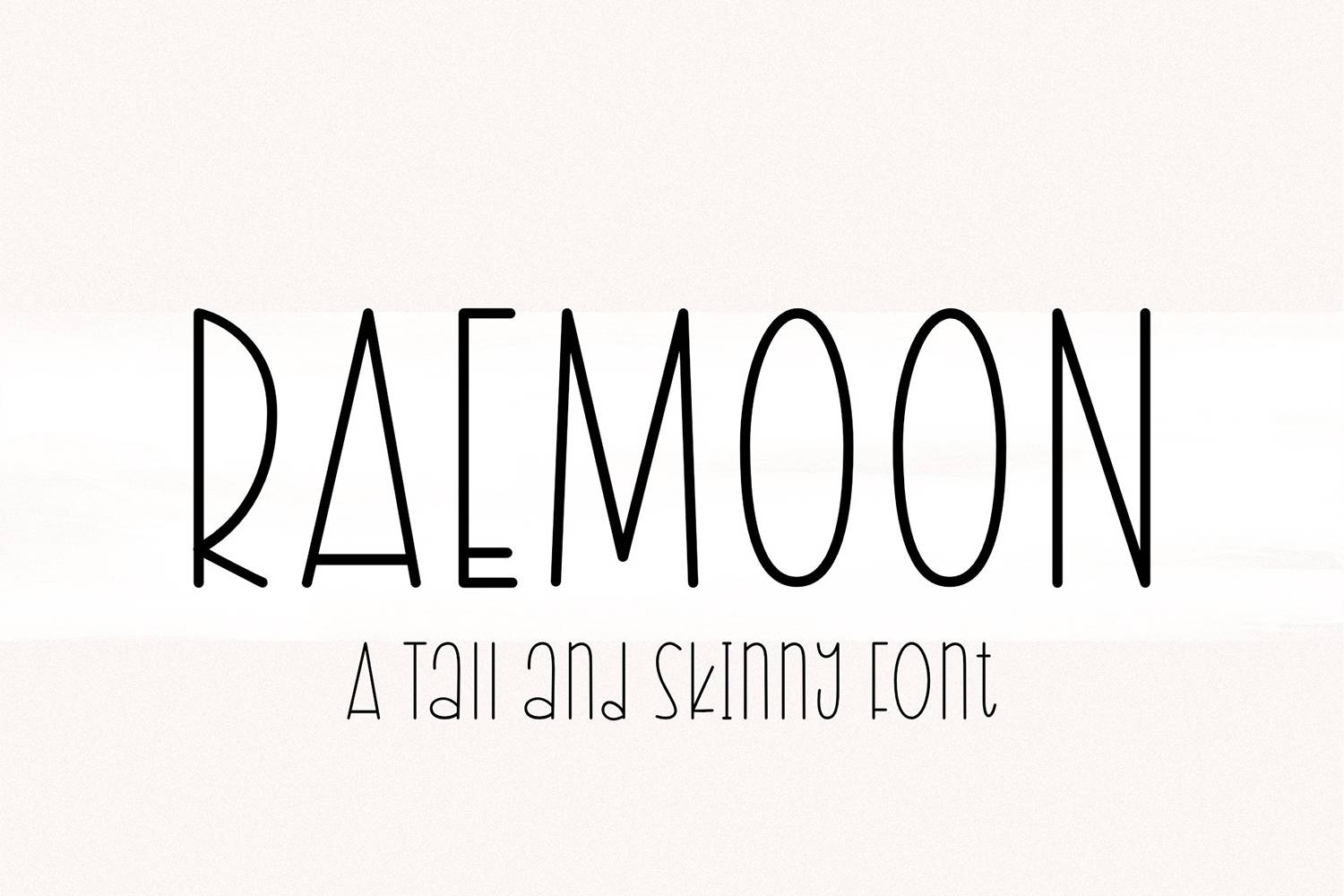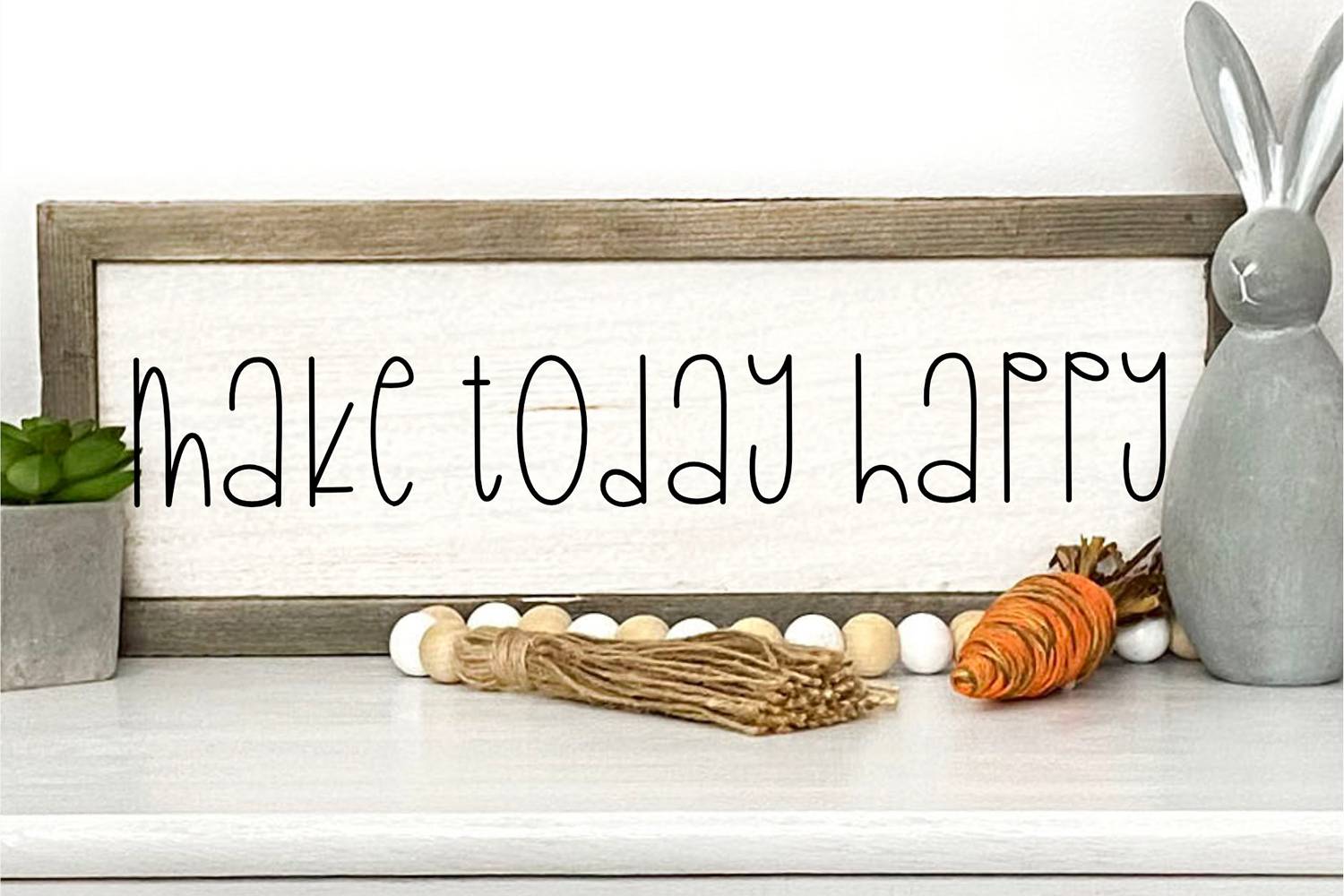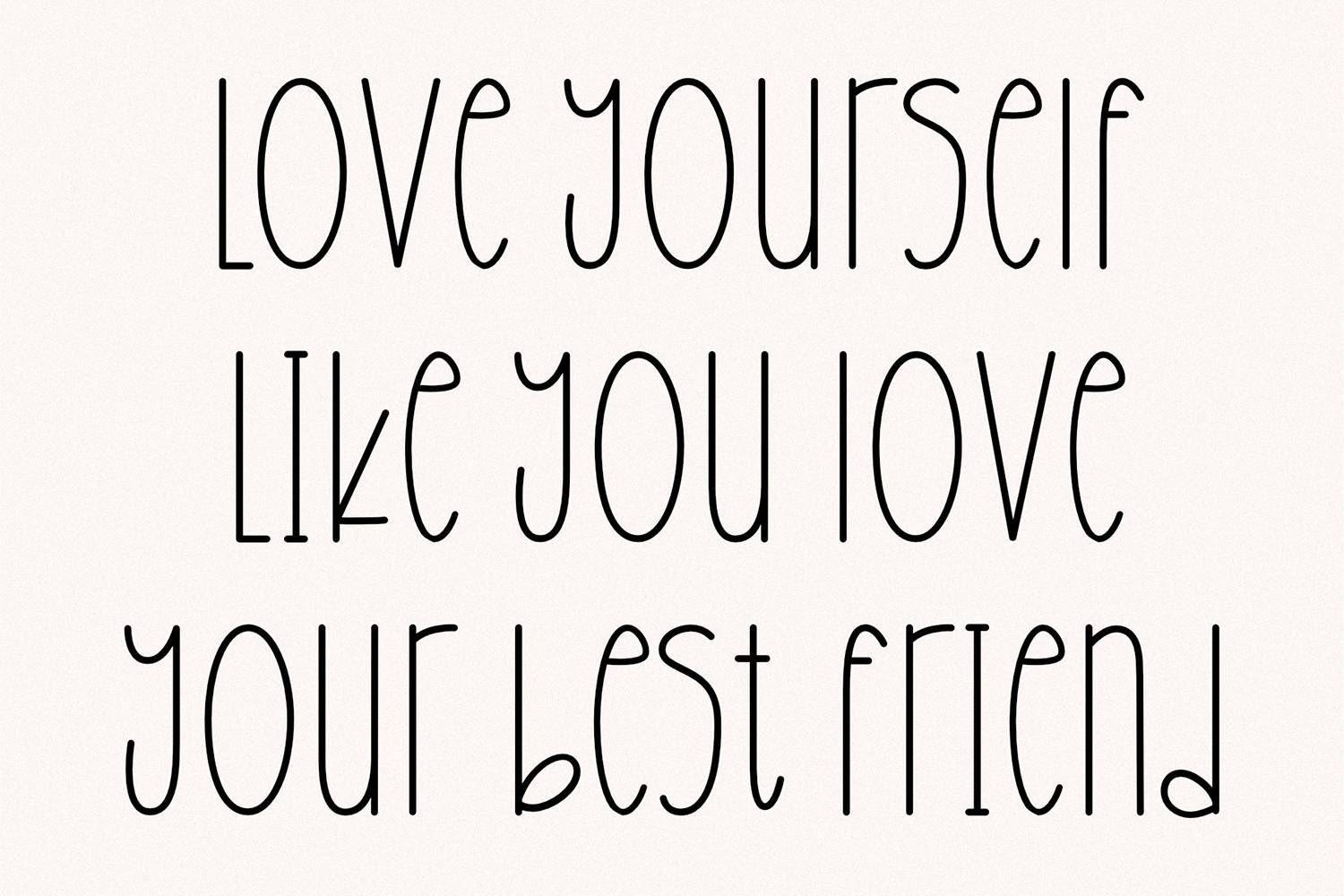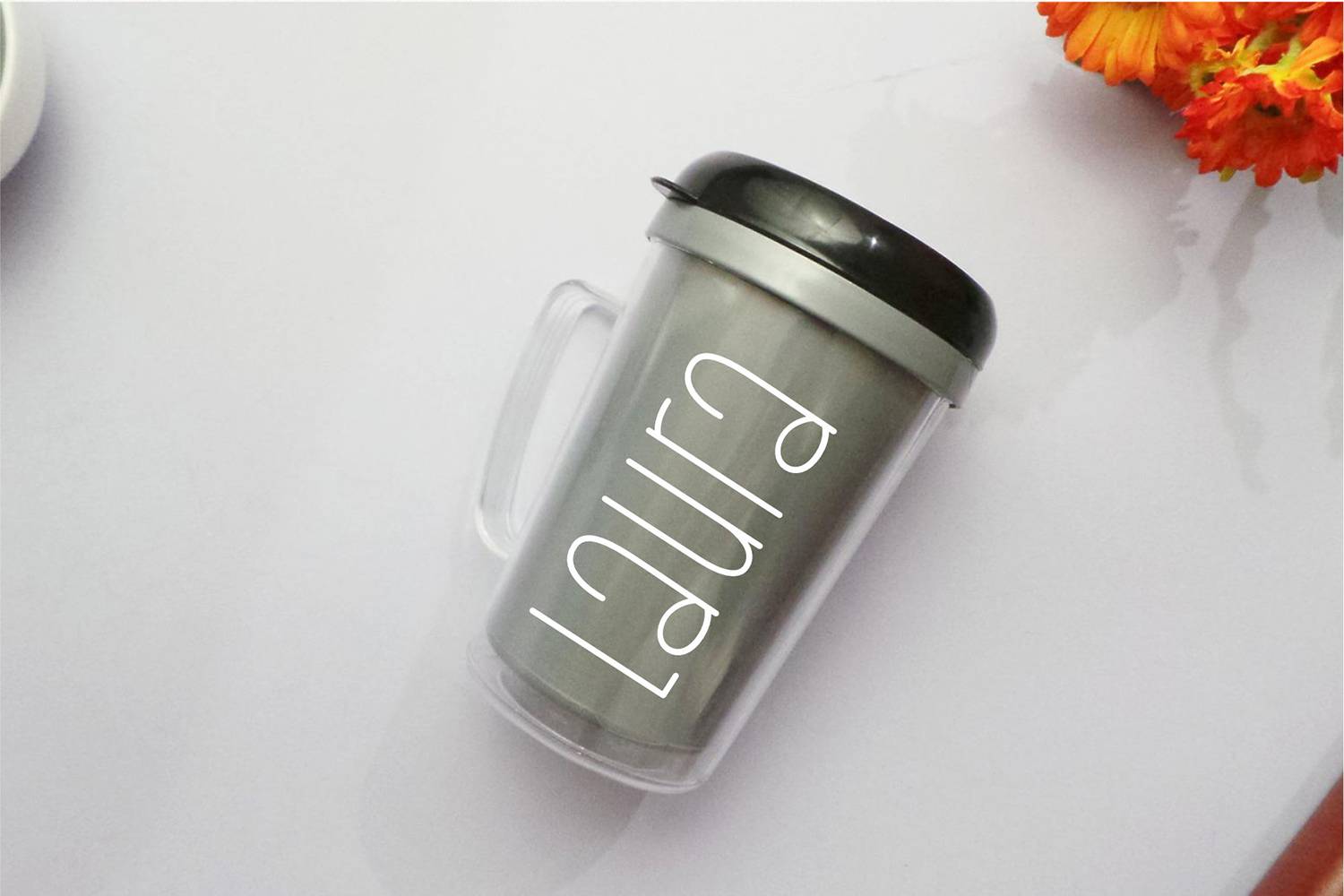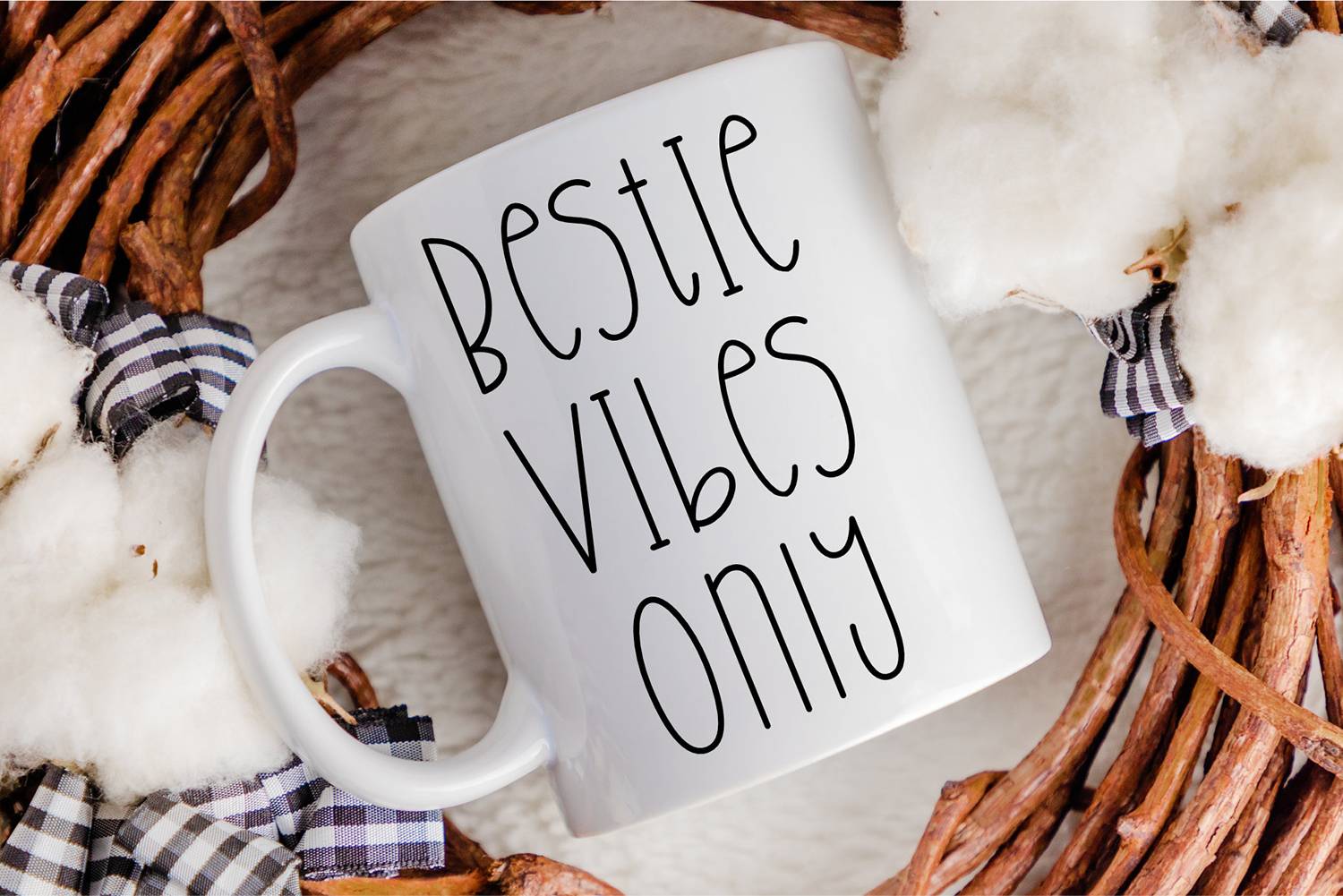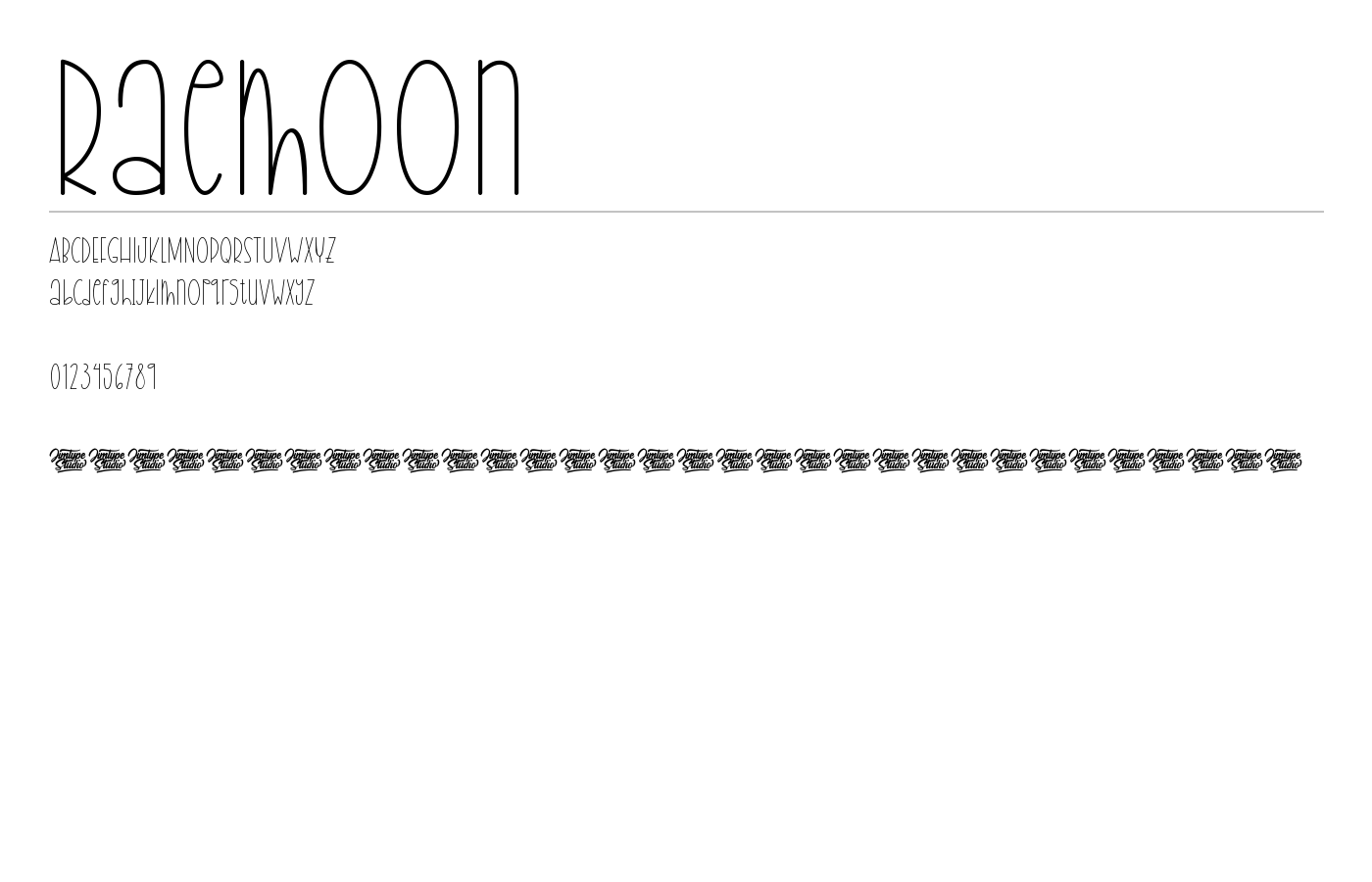
Raemoon is a delicate, tall, and narrow sans serif font with a playful and quirky personality. Its thin strokes and unique letter shapes give it a whimsical, hand-drawn feel that works well for creative, informal designs such as logos, posters, and headlines where a light, airy touch is desired. This font adds a charming and approachable character, making it perfect for artistic or youthful brands.
Raemoon Font
About Raemoon Font
| Font family | Raemoon Font |
| Release date | 2022-06-19 |
| Designer | Jimtype Studio |